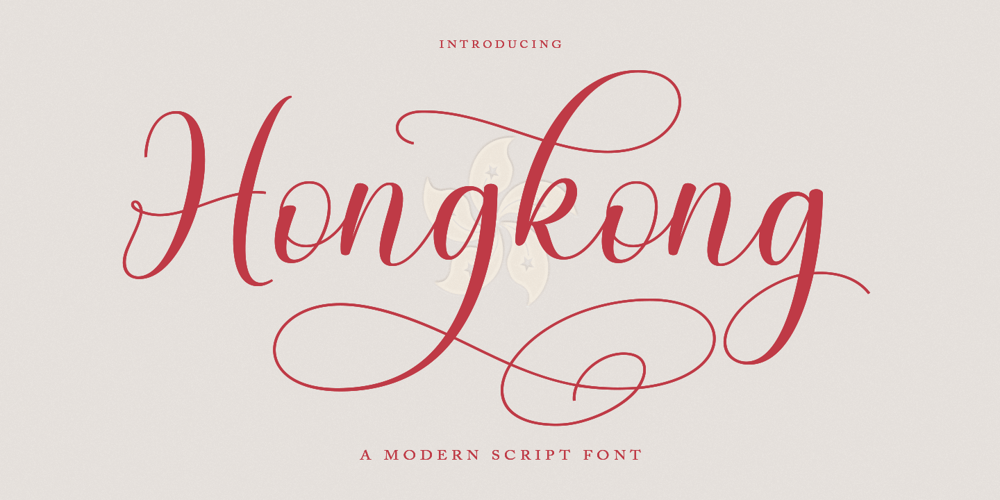
Hongkong Script Font Family was designed by Has Rizal and published by Hrz Studio. Hongkong Script contains 1 styles and family package options. Hongkong Script is a beautiful handwritten font, it is perfect for logos, invitations, stationery, wedding designs, social media posts, advertisements, product packaging, product design, labels, photography, watermarks, special events or anything else.Hongkong Script comes with a full set of uppercase and lowercase letters, lowercase swash, multilingual symbols, numbers, punctuation.